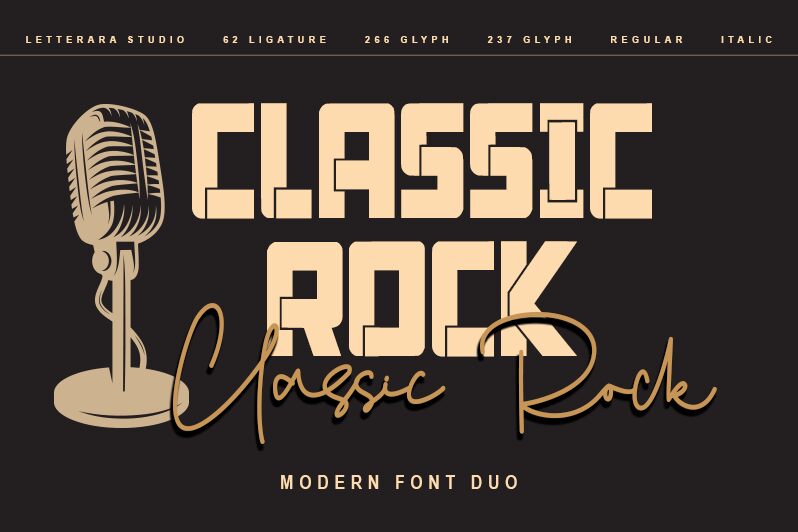
Classic Rock font is a techno display font by Letterara. Bold and angular, it delivers designs that are robust with a strong presence. Its classic retro charm is evident in the geometric characters it displays, each radiating vintage appeal and an authoritative vibe.
This free display font can be added to old school band posters designs, movie posters, album covers and packages. It’ll perfectly adorn journals’ covers, T-shirts, indoor banners and outdoor signage. Even business cards can get benefit from its robust presence to attract more attention to your brand or personal identity.